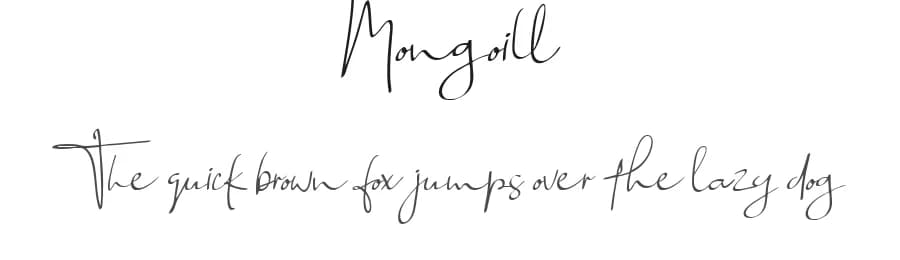
About Mongoill Font
Mongoill Specifications
| Font Family | Mongoill |
| Full Name | Mongoill |
| Glyph Count | 231 glyphs |
| PostScript Name | Mongoill-SignatureScript |
| Designer | Yusup Saputra |
Mongoill supports 213 languages.
Mongoill Font is a script font that shines as a display or heading face. Pair it with a clean sans-serif or serif font for body text β the contrast creates a clear hierarchy while the two styles stay balanced and easy to read.
Mongoill Font
by DYSA Studio